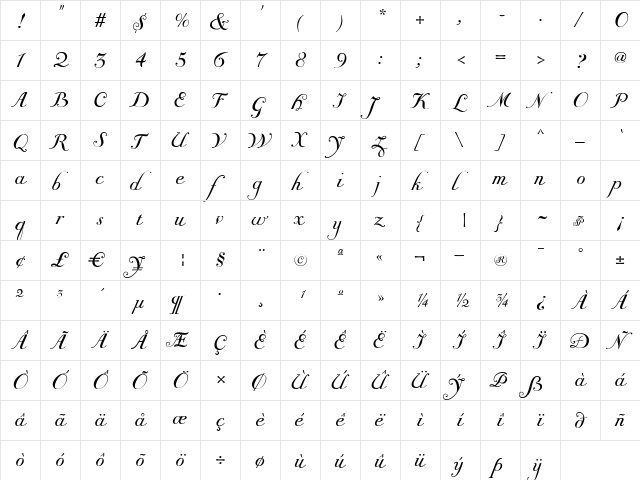
GiambattistaOne Script
| Style | Script |
Design Context for GiambattistaOne Typeface
GiambattistaOne brings a calligraphic fluidity to the page — its connecting strokes and expressive curves give it an unmistakably human quality.
Font Pairing: Combine GiambattistaOne with a simple geometric sans for maximum contrast — the tension between flowing curves and clean structure is a classic typographic pairing.
Pro Tip: Use GiambattistaOne for short runs of text — names, titles, or taglines. Extended body copy in script faces tires the eye quickly.